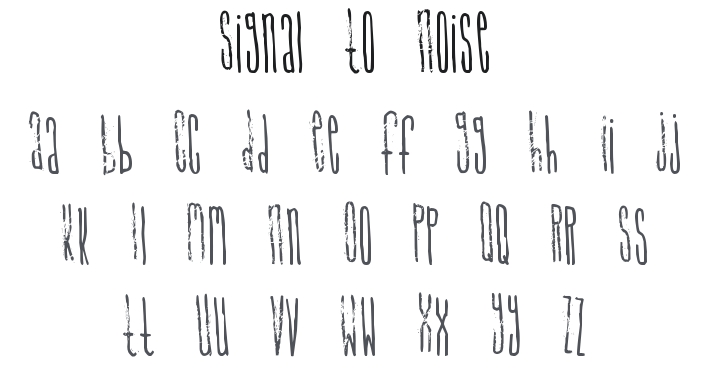
Signal To Noise Font
About Signal To Noise
Signal To Noise (Just Lowercase, Caps) has two sets of characters, the lowercase are clean ('signal to' at left) and the uppercase are noisy ('noise' at left). The letters are tall and thin unicase characters. Designed for headlines only.